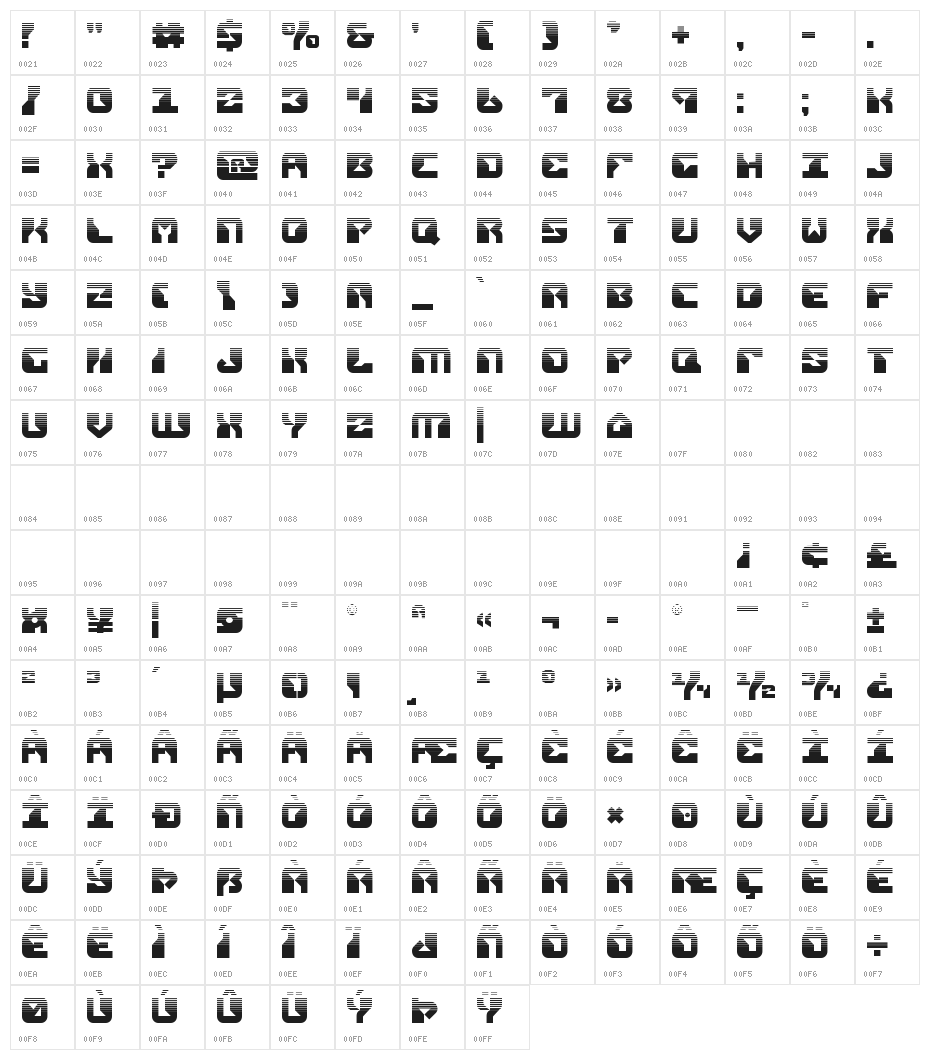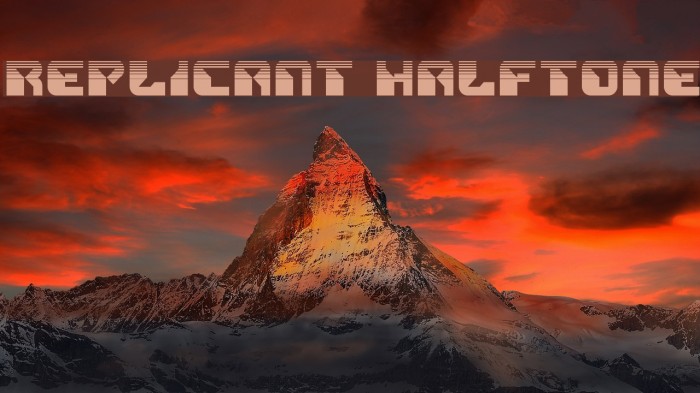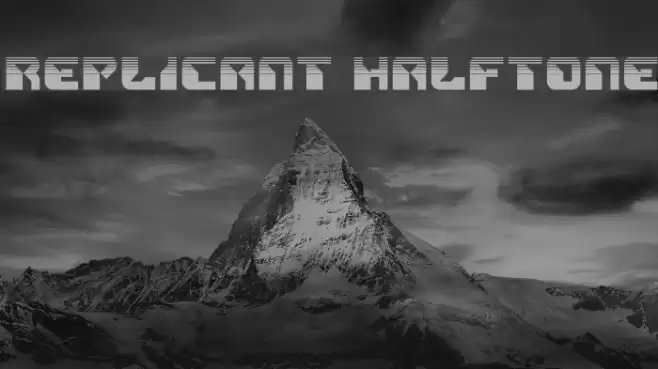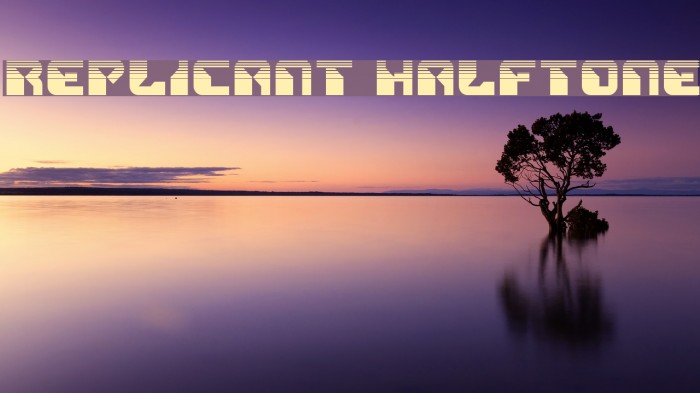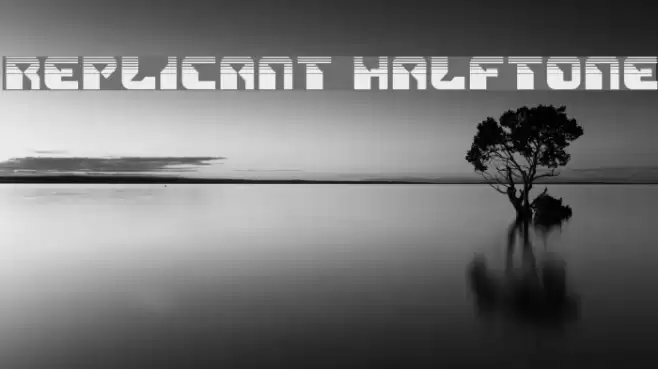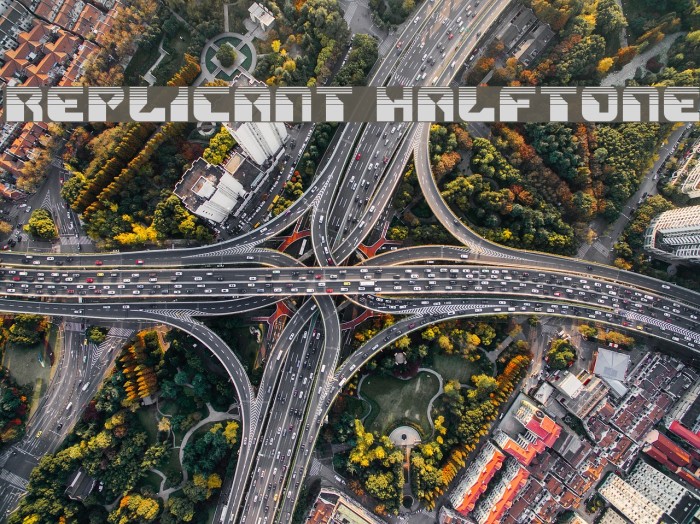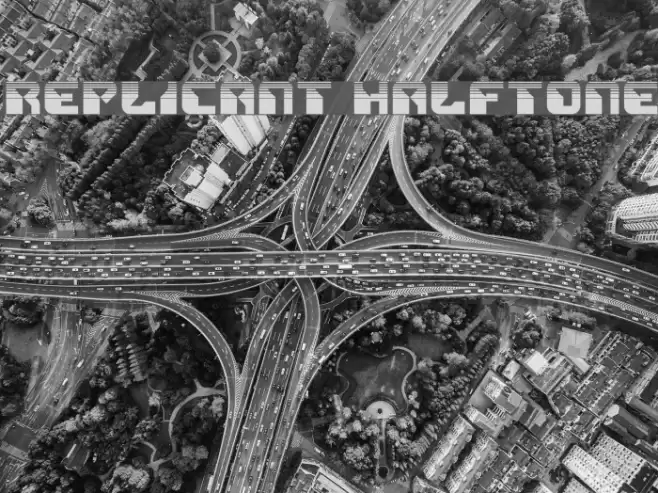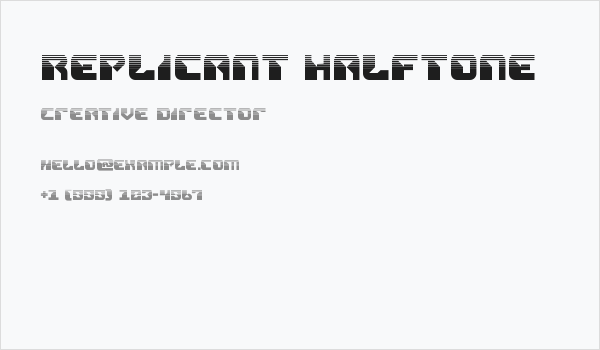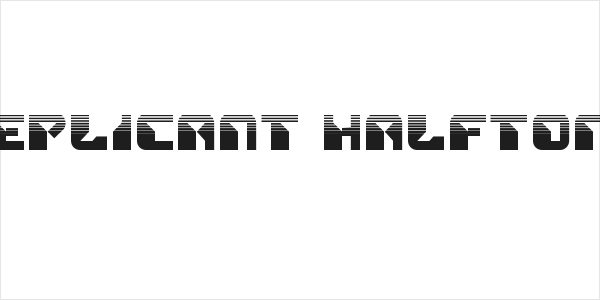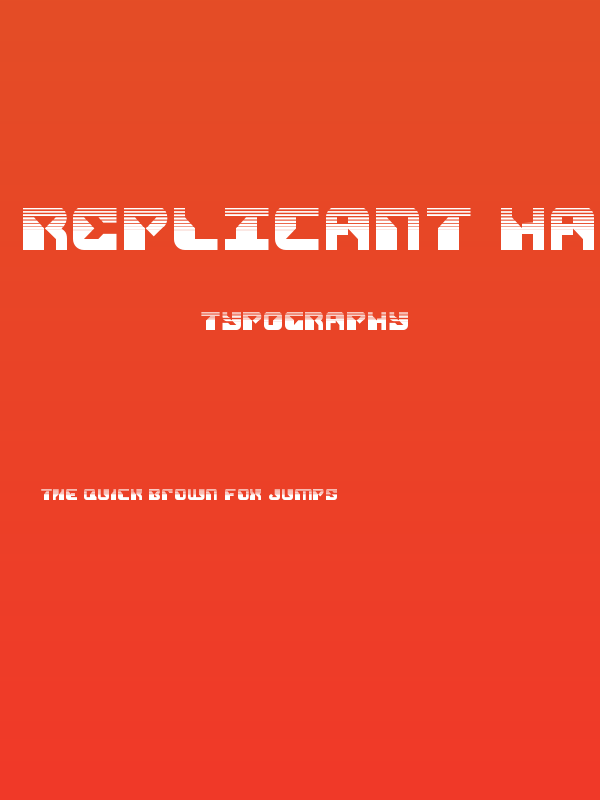
Replicant Halftone Font
Replicant Halftone Description
This font features a bold, futuristic design with a halftone effect that creates a sense of movement and depth. The characters are constructed with a combination of solid and striped segments, giving them a unique, digital appearance. The uppercase and lowercase letters maintain a consistent style, with sharp angles and geometric shapes. The numerals and special characters are equally stylized, ensuring a cohesive look across all text. This font is ideal for projects that require a modern and edgy aesthetic.
| Proposed Projects | Ideal for sci-fi themed designs, tech branding, video game titles, and modern posters. |